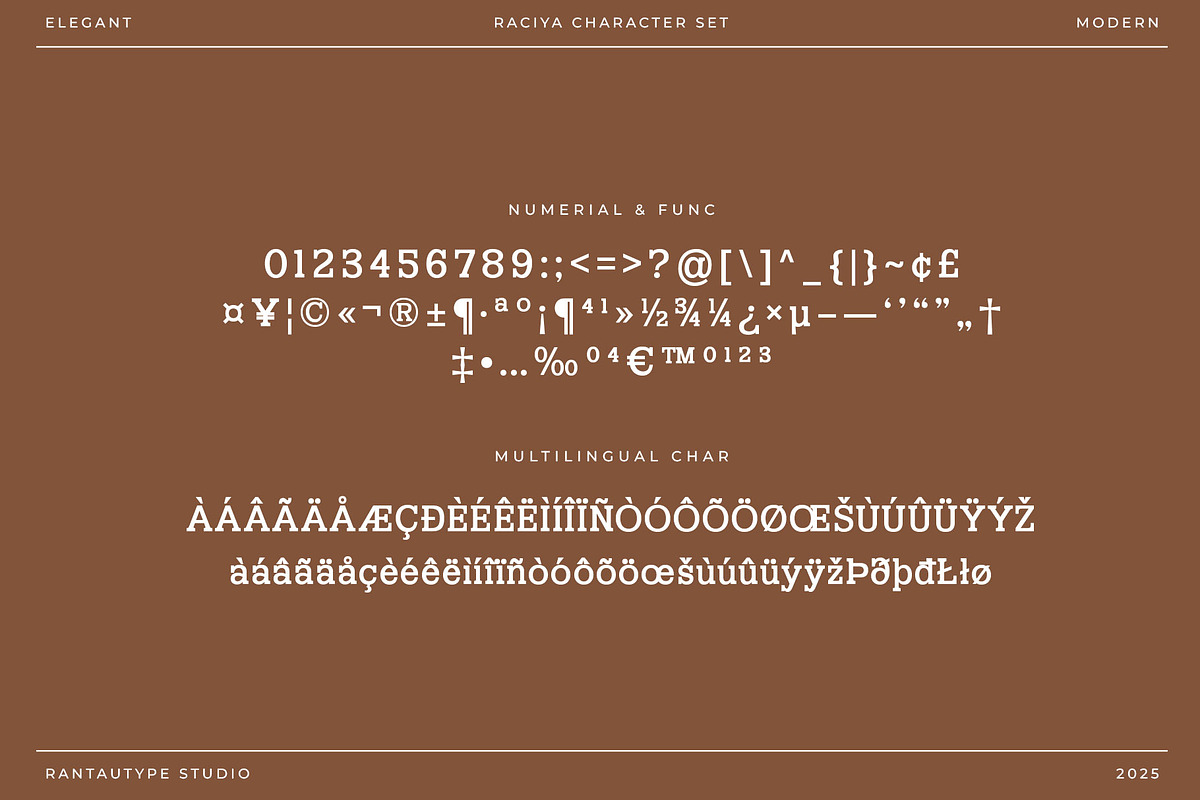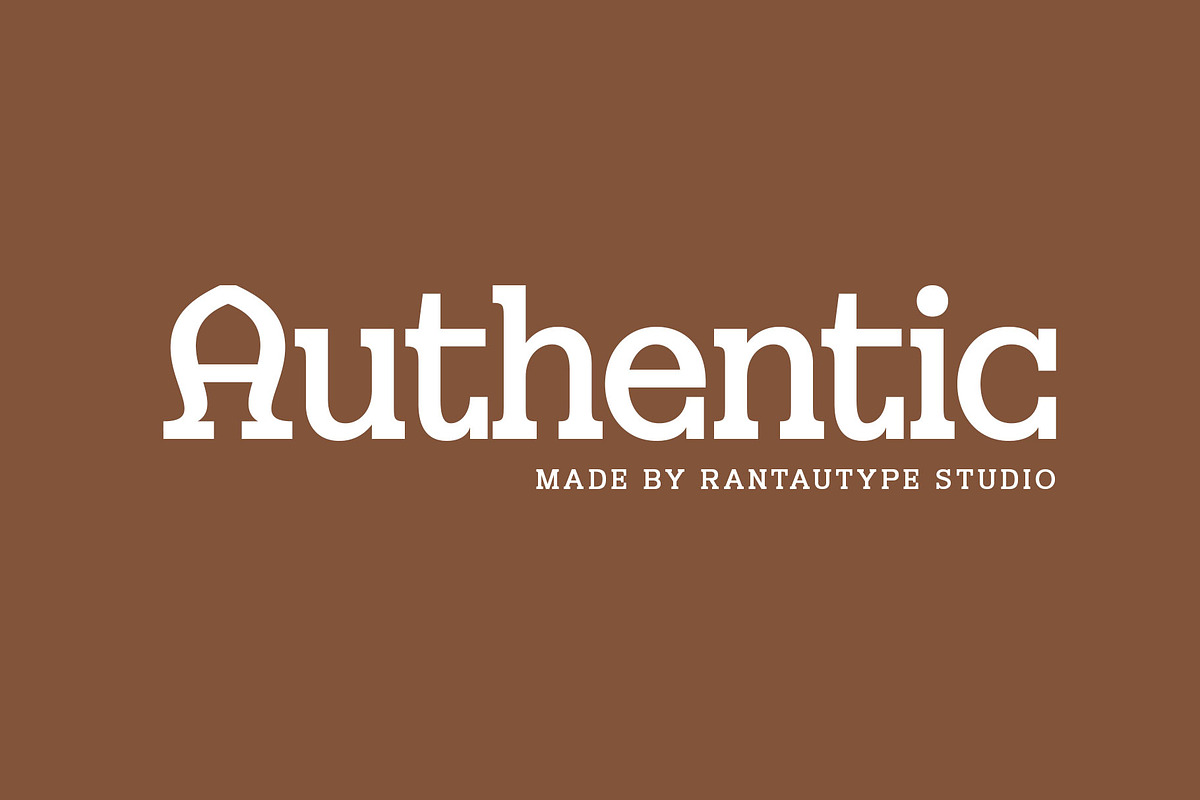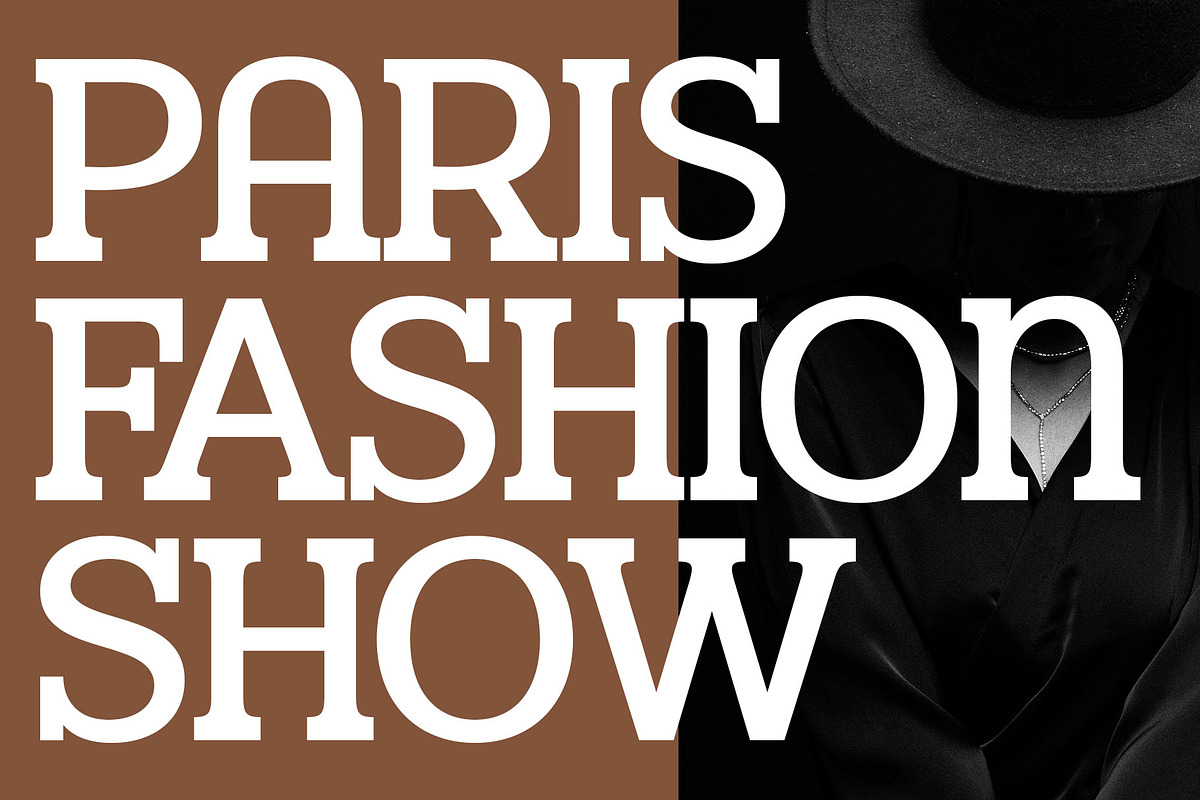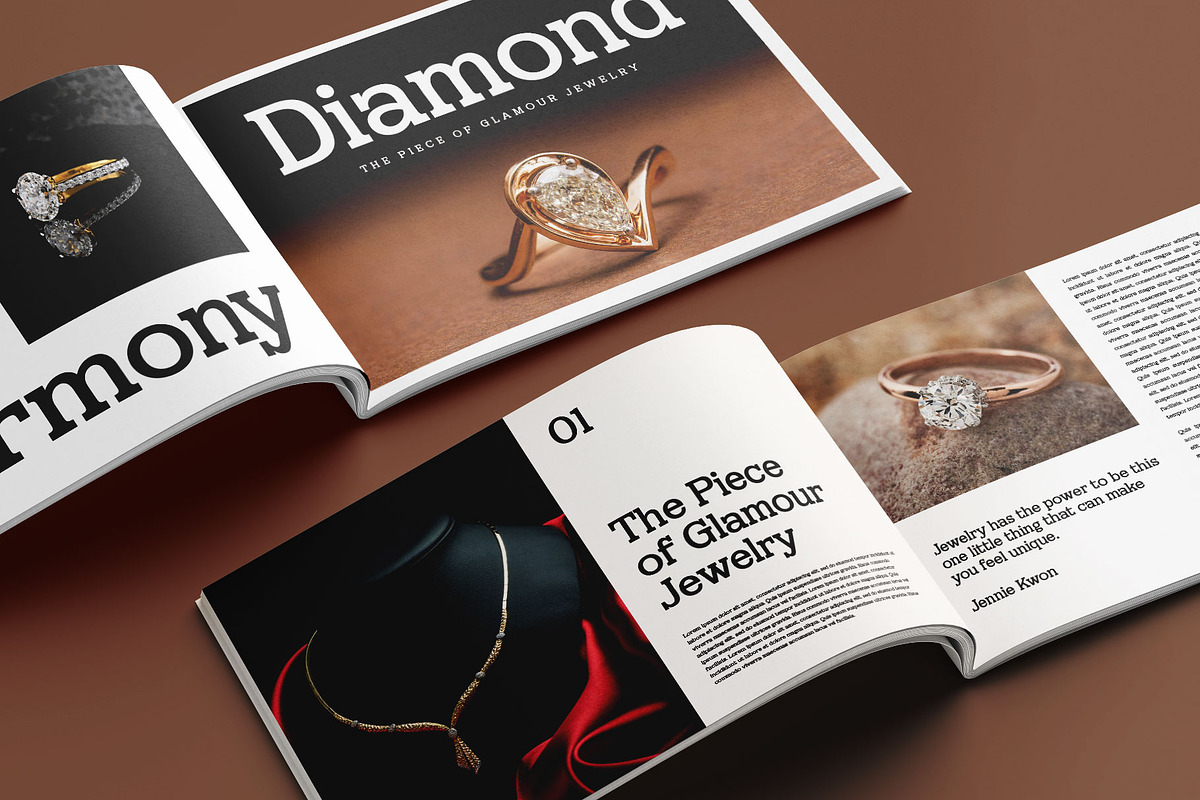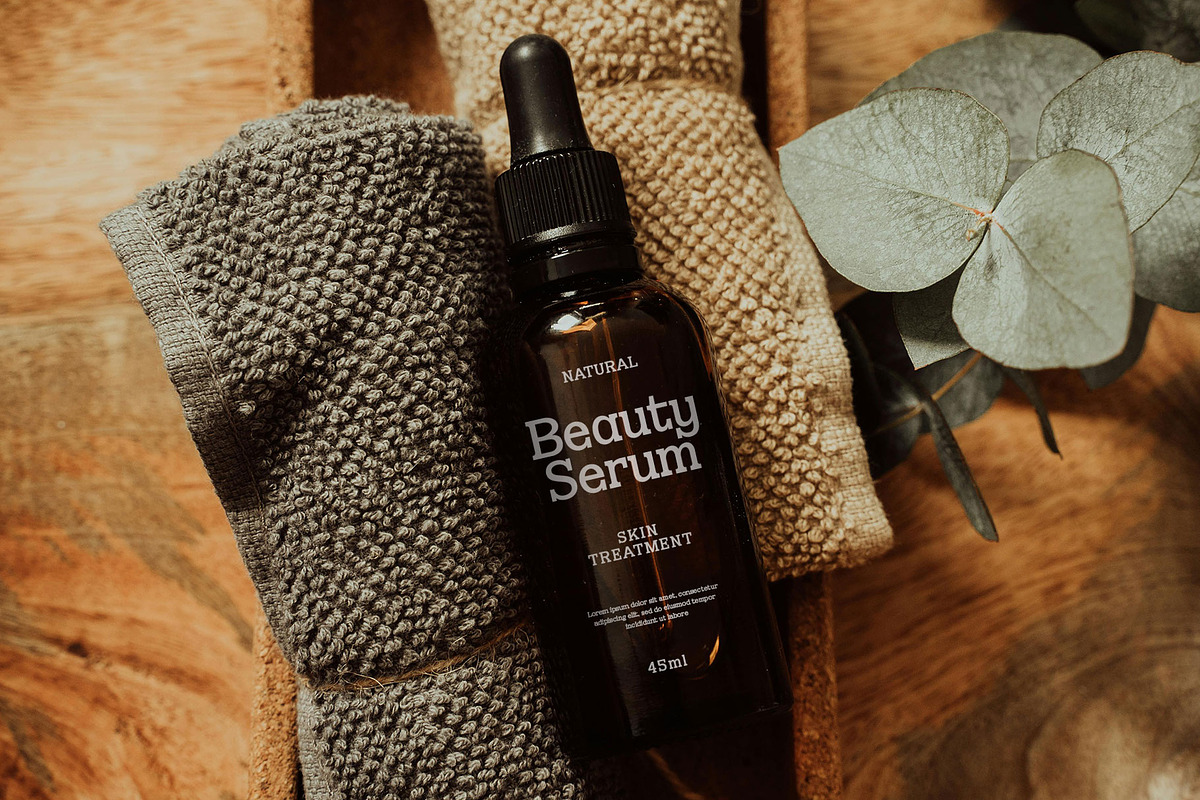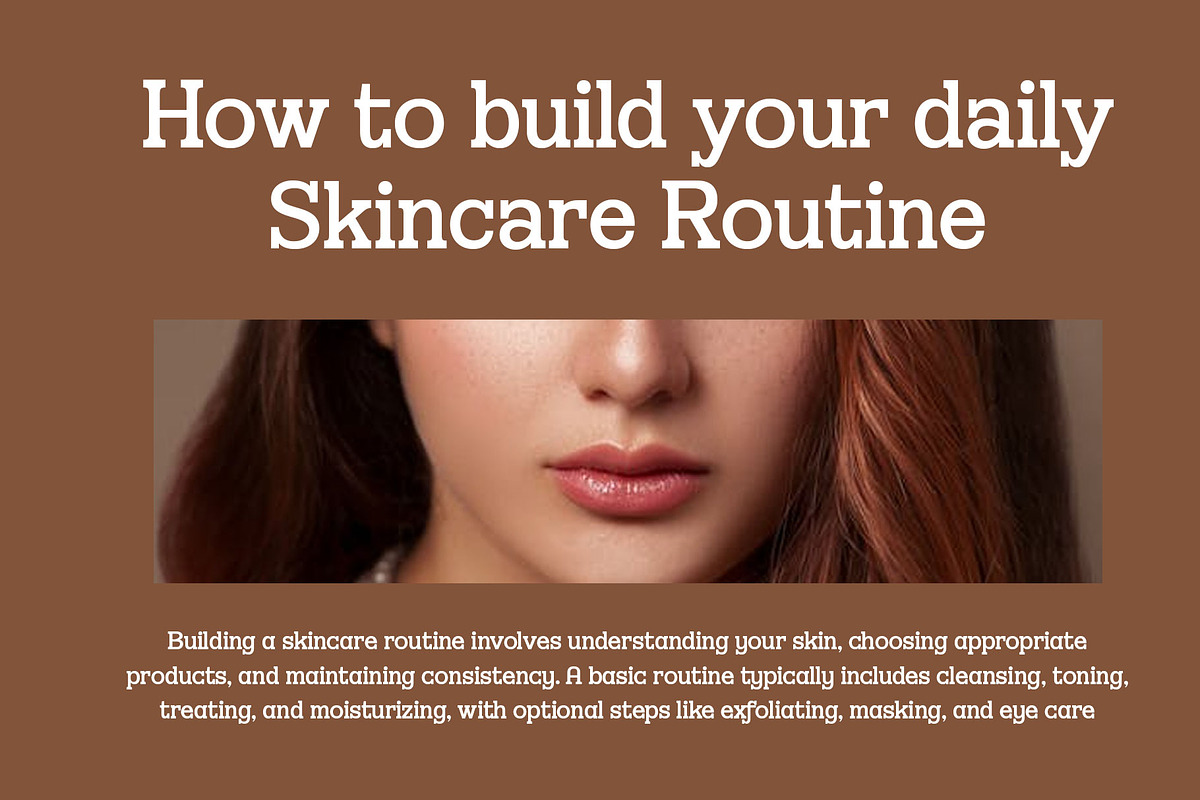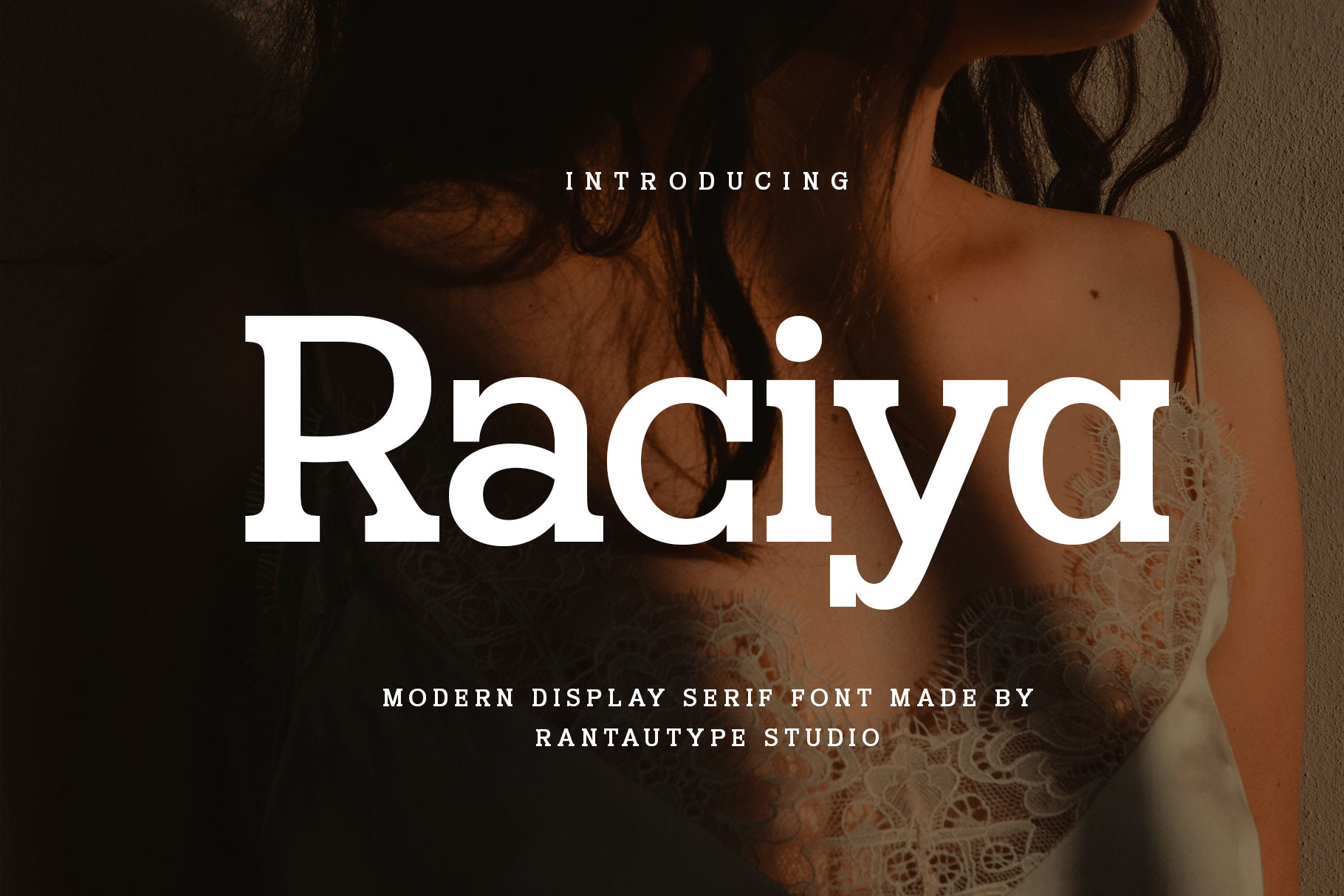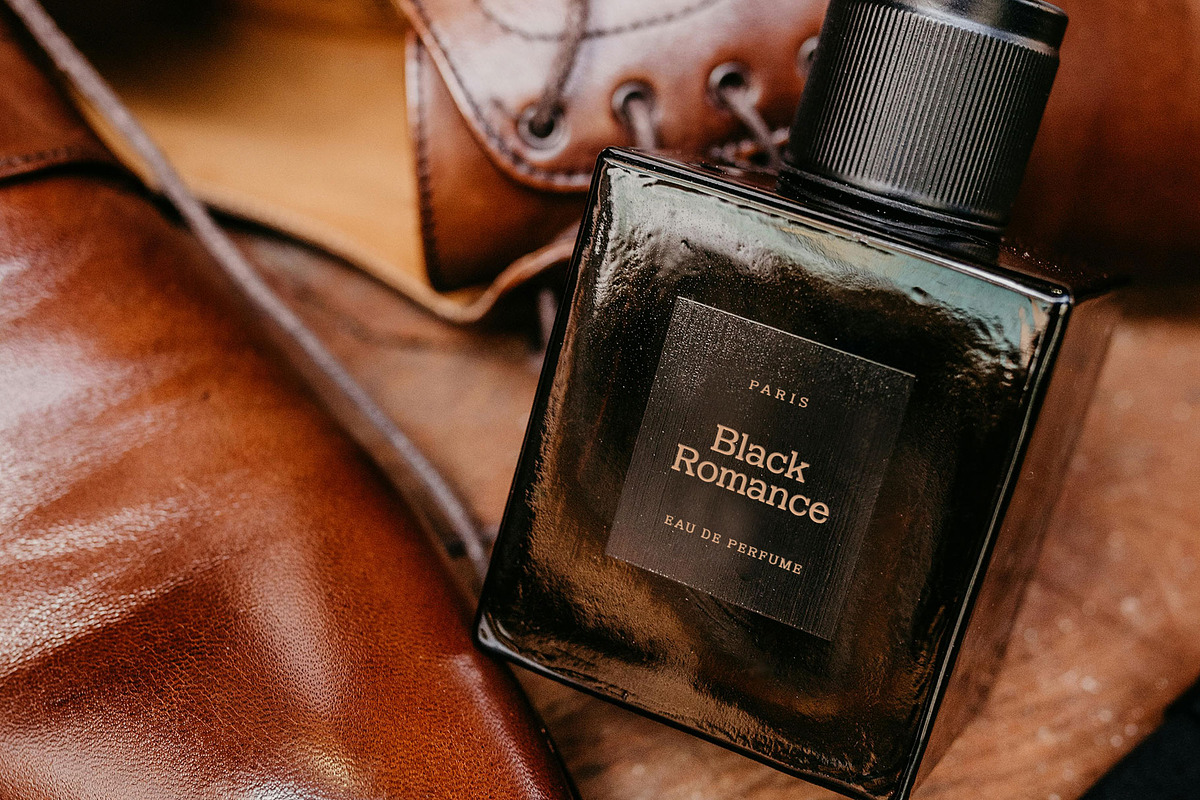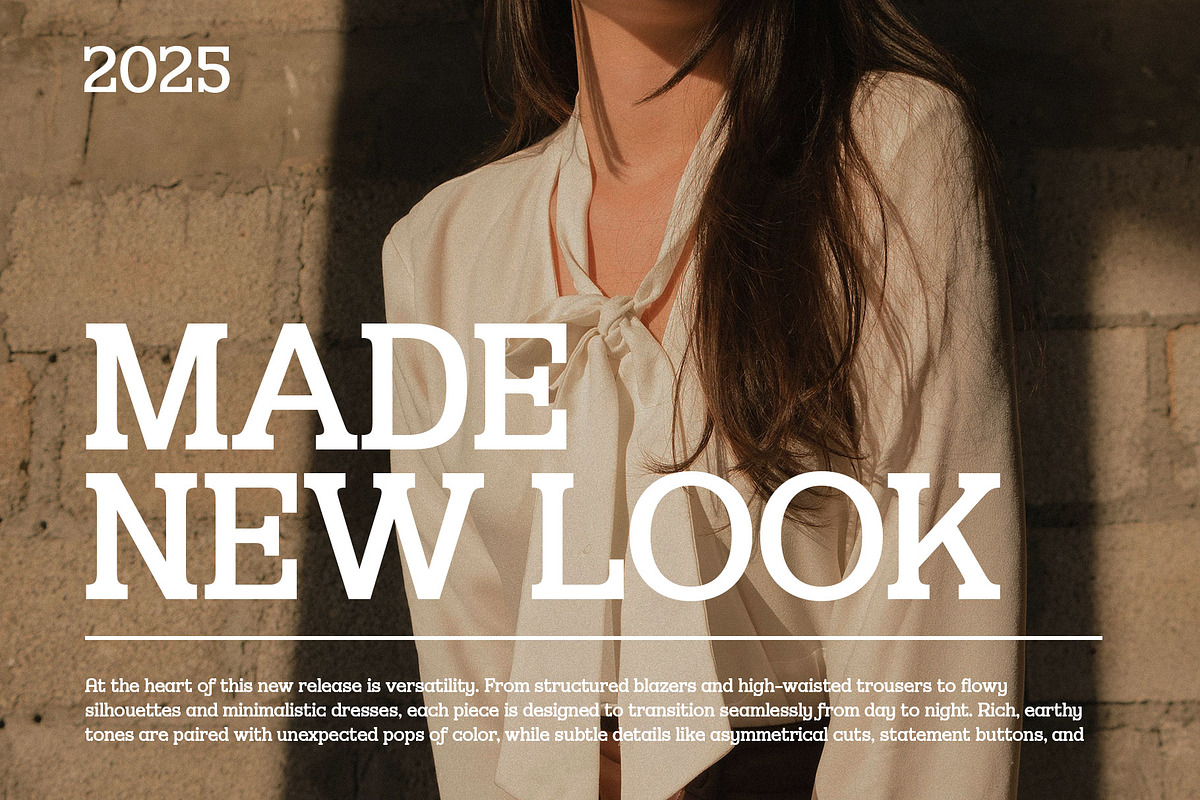
Raciya Modern Display Serif Font
Raciya is modern serif font made by rantautype studio. Raciya is a perfectly choice for any creative endeavor, chic, lifestyle design such as logotype, advertisements, watermark on photography, stationery, branding project, display and magazine, invitation, corporate brand, product design, label, business project and many other project with retro touch.
- Alternate and ligature
Fonts include Multilingual Character for: Afrikaans, Albanian, Asu, Basque, Bemba, Bena, Breton, Chiga, Cornish, Dutch, English, Estonian, Filipino, Finnish, Friulian, Galician, Gusii, Indonesian, Irish, Italian, Kabuverdianu, Kalenjin, Kinyarwanda, Luo, Luxembourgish, Luyia, Machame, North, Oromo, Portuguese, Quechua, Romansh, Rombo, Rundi, Rwa, Samburu, Sango, Sangu, Scottish, Gaelic, Sena, Shambala, Shona, Soga, Somali, Spanish, Swahili, Swedish, Swiss, German.